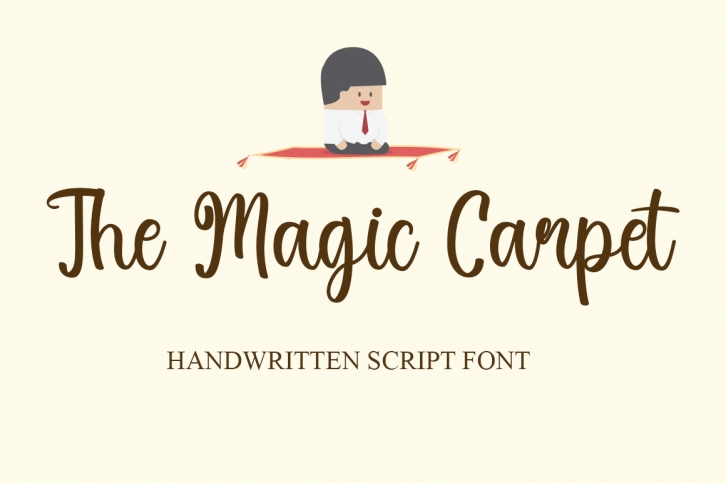
The Magic Carpet is a stylish and cool handwritten font. It looks ravishing on invitations, thank you cards, quotes, greeting cards, logos, business cards and every other design which needs a customized touch.